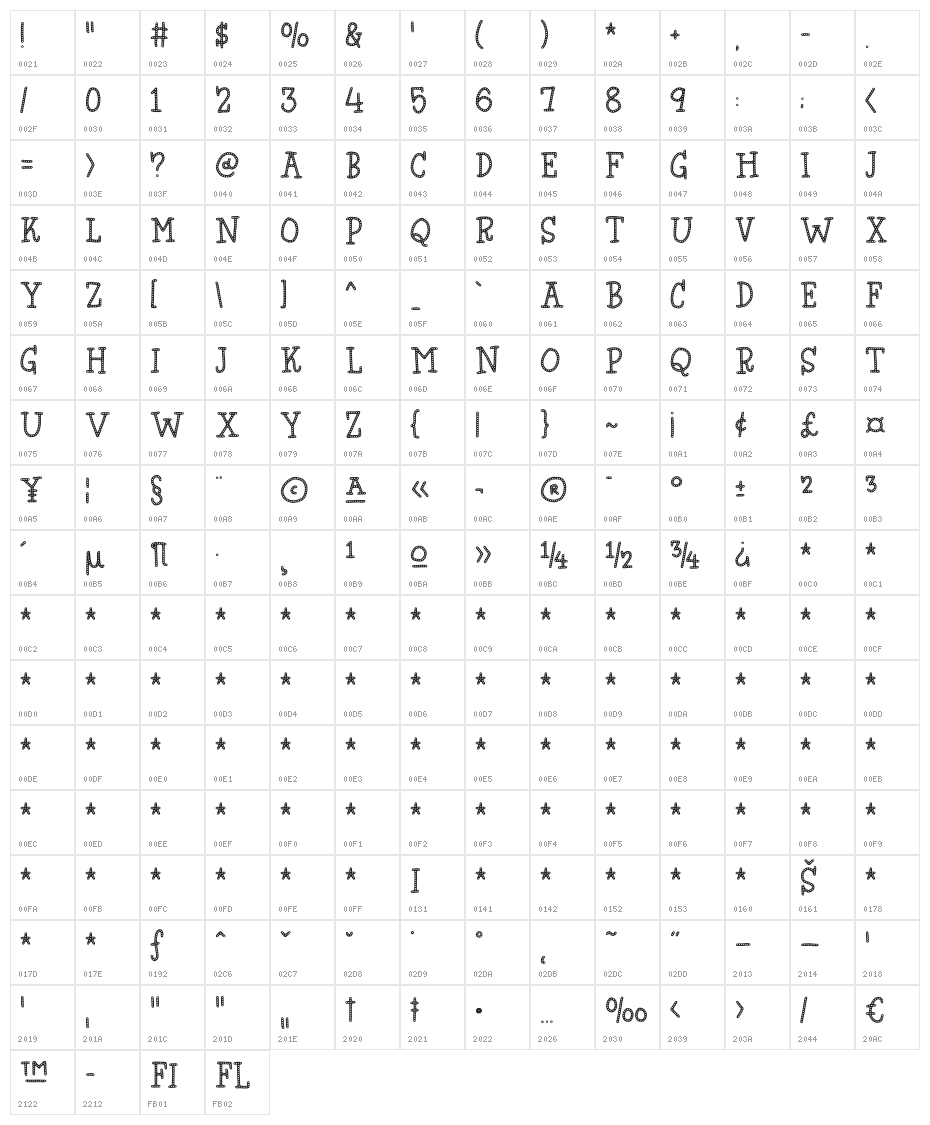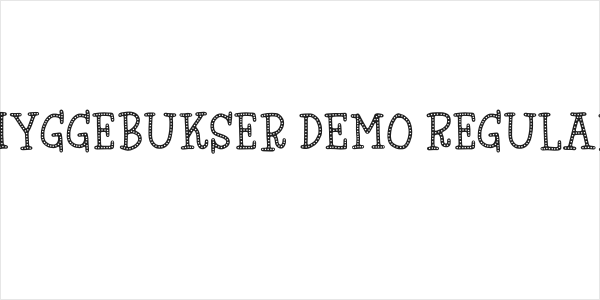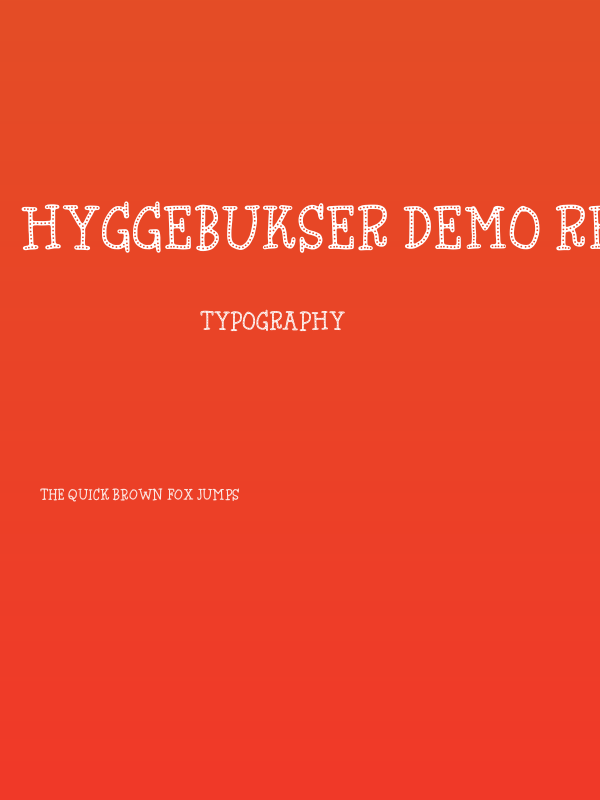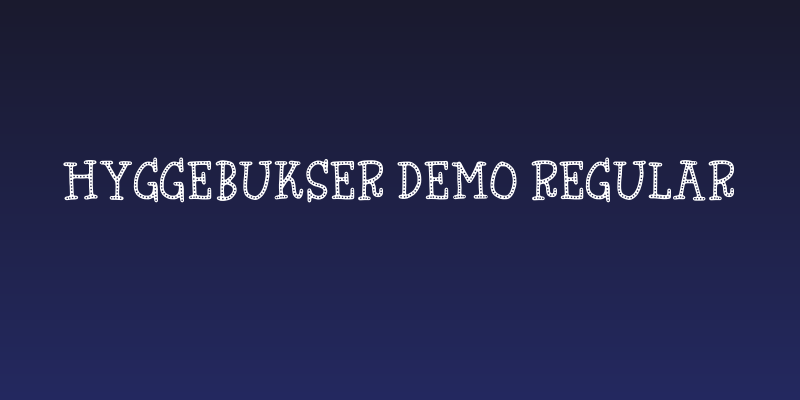
Hyggebukser DEMO Regular Font
Hyggebukser DEMO Regular Description
This playful and decorative font features a unique dotted outline style that adds a whimsical touch to any design. Each character is outlined with evenly spaced dots, creating a lively and eye-catching appearance. The uppercase and lowercase letters maintain a consistent style, with rounded edges and a slightly irregular shape that enhances its handcrafted feel. The numbers and special characters follow the same dotted pattern, ensuring a cohesive look across all elements. This font is ideal for projects that require a fun and engaging aesthetic, such as children's books, party invitations, or playful branding materials.
| Overall Style | Whimsical, Playful |
| Use Case | Headlines, Logos, Decorative text |
| Proposed Projects | Children's books, party invitations, playful branding, greeting cards, and posters. |